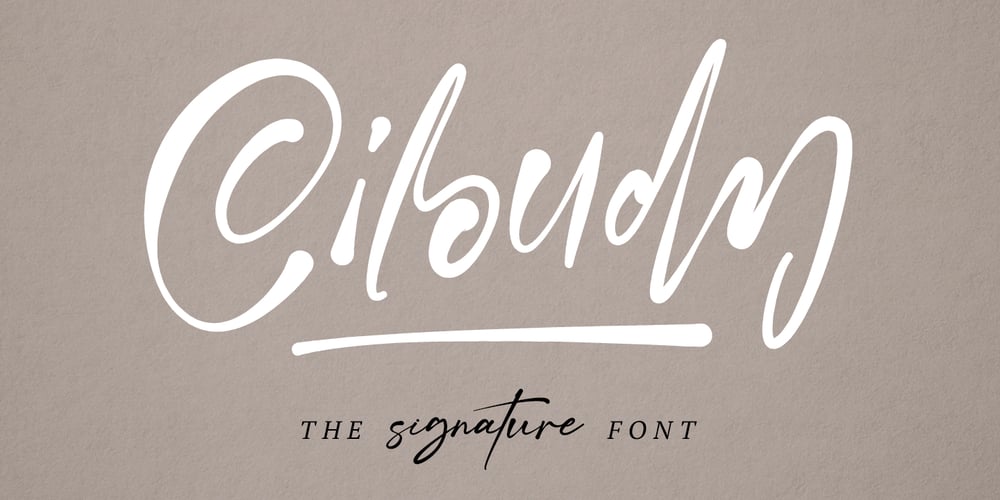
MC Ciloudy
MC Ciloudy font
MC Ciloudy Font Family was designed by Gilang Maulana and published by Maulana Creative. MC Ciloudy contains 1 styles and family package options. Give your designs an authentic brush handcrafted feel. “Ciloudy Signature Brush Font” is perfectly suited to signature, stationery, logo, typography quotes, website header, branding and more.Many Thanks,Maulana Creative